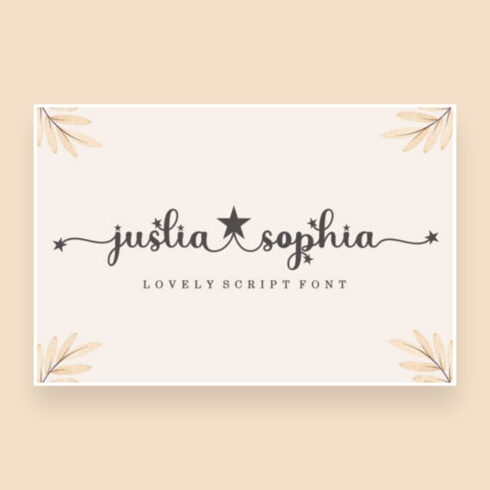
Juslia Sophia Romantic And Sweet Calligraphy Font
105+ Gorgeous Calligraphy Fonts from Genesislab. If your typeface toolbox feels a little empty, then this Mighty Deal from Genesis Lab will more than fill it up for you. You’d be hard pressed to find a more beautiful collection of handmade script fonts. This set features 105+ modern calligraphy fonts just perfect for creating wedding invitations, signatures, letterhead, logos, T-shirts and everything in between. With loads of OpenType features available, you can mix and match styles to create the perfect masterpiece.